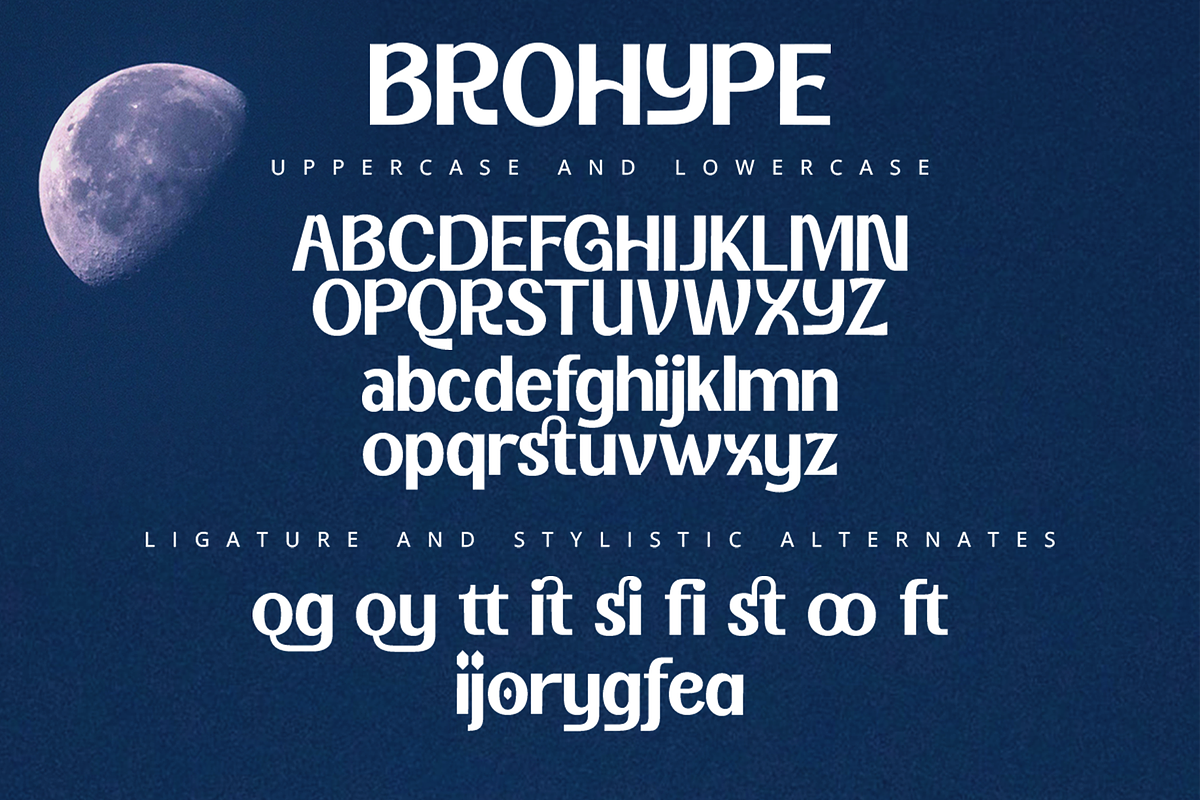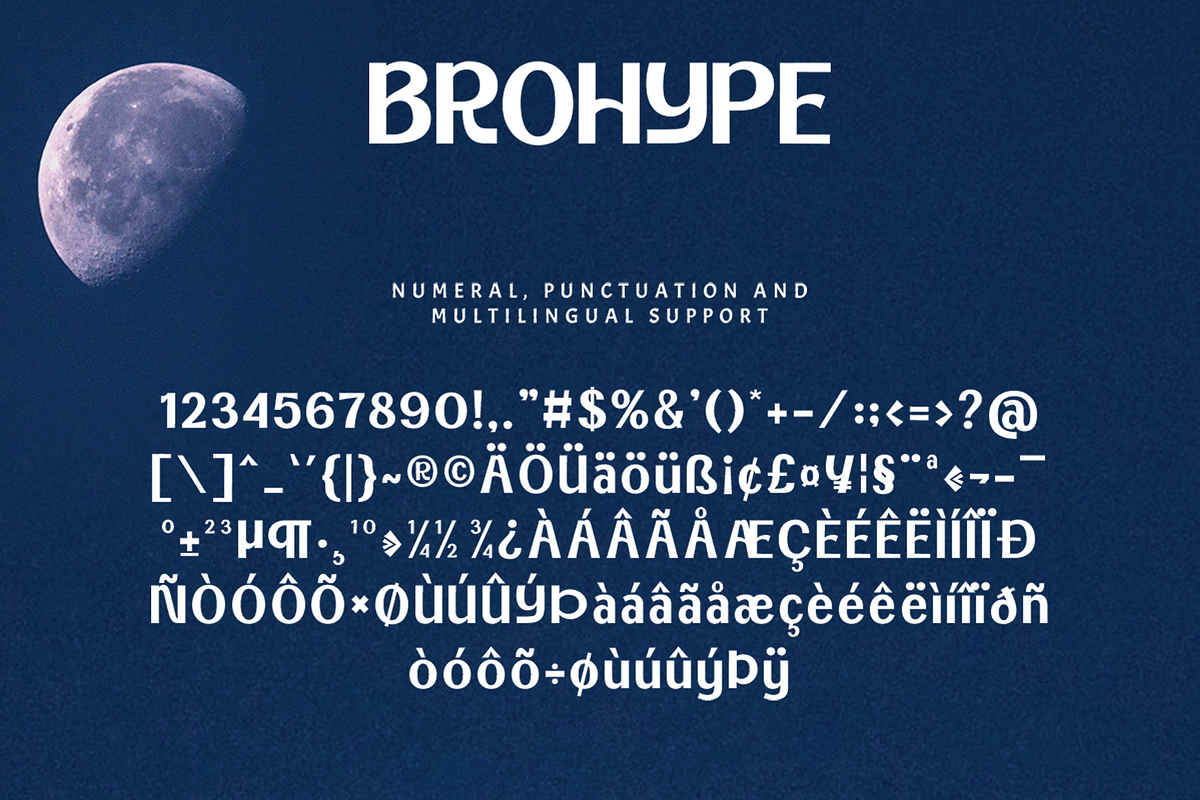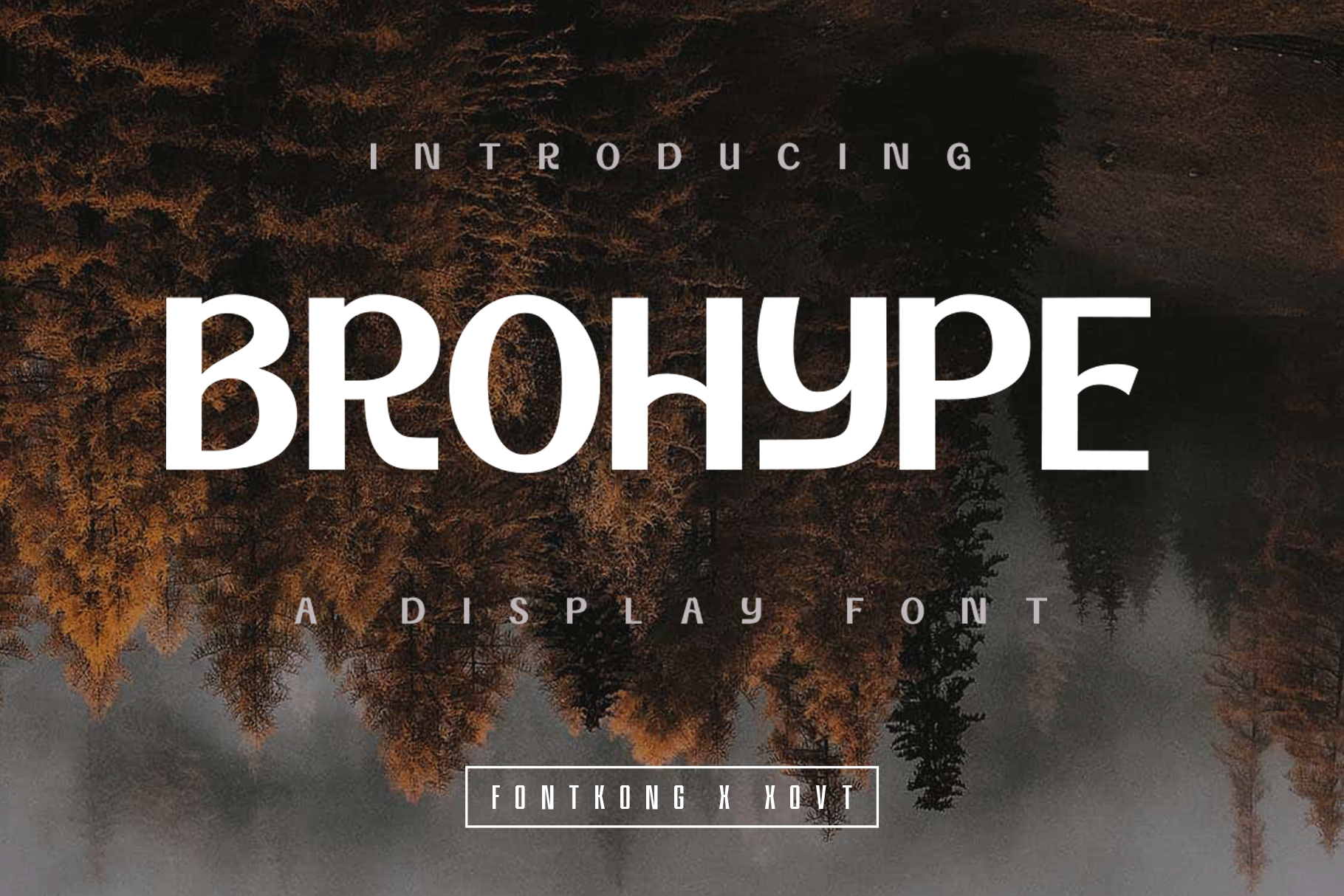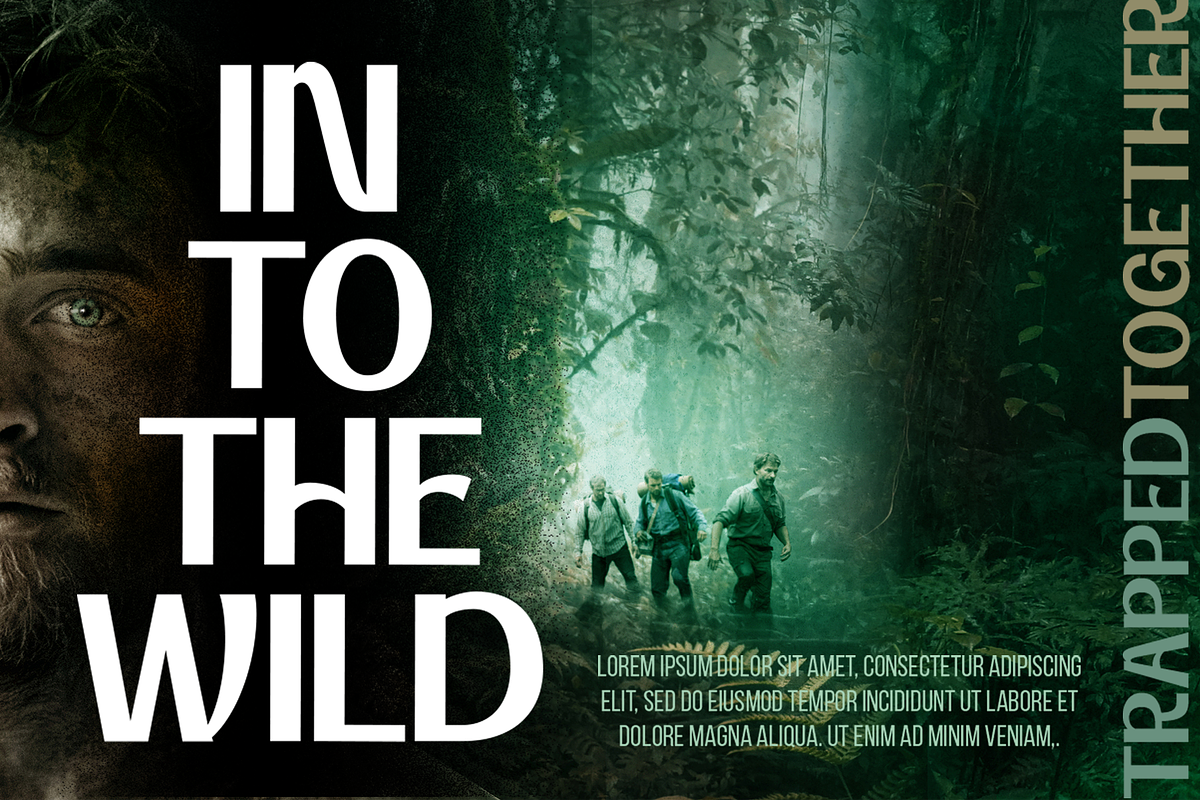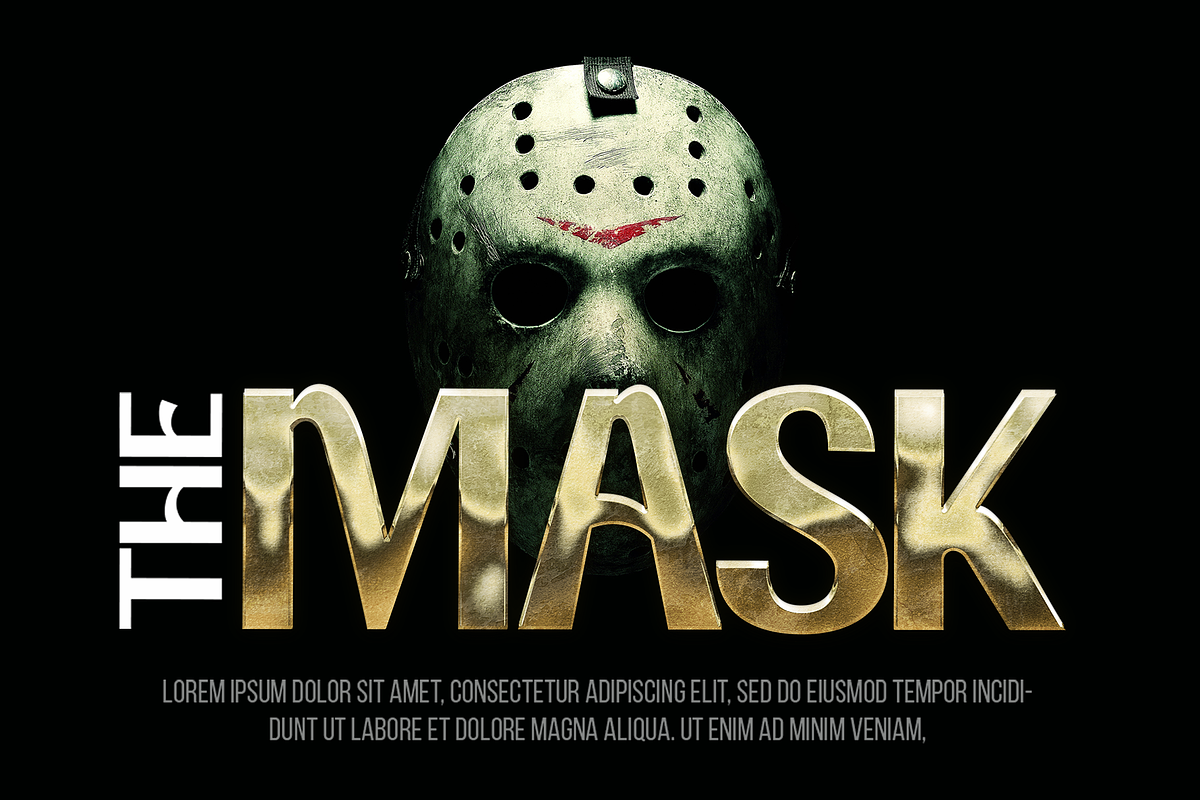
Brohype - Display Font
Introducing "Brohype," a dynamic display font designed to make your designs pop with energy and style. Perfect for projects that require a bold and eye-catching presence, Brohype brings a modern and edgy touch to your creative arsenal.
Ideal for posters, logos, headlines, and branding materials, Brohype's distinctive style ensures your message is both seen and remembered. Each character is meticulously crafted to deliver a powerful visual impact, making it an excellent choice for any project that needs to stand out.
The "Brohype" font includes a complete set of uppercase and lowercase letters, numbers, and punctuation marks, providing the versatility you need for various design applications. Whether you're creating vibrant advertisements or memorable brand identities, Brohype enhances your projects with its bold and dynamic typography.
Elevate your designs with Brohype, a display font that amplifies your message with unparalleled flair and impact.